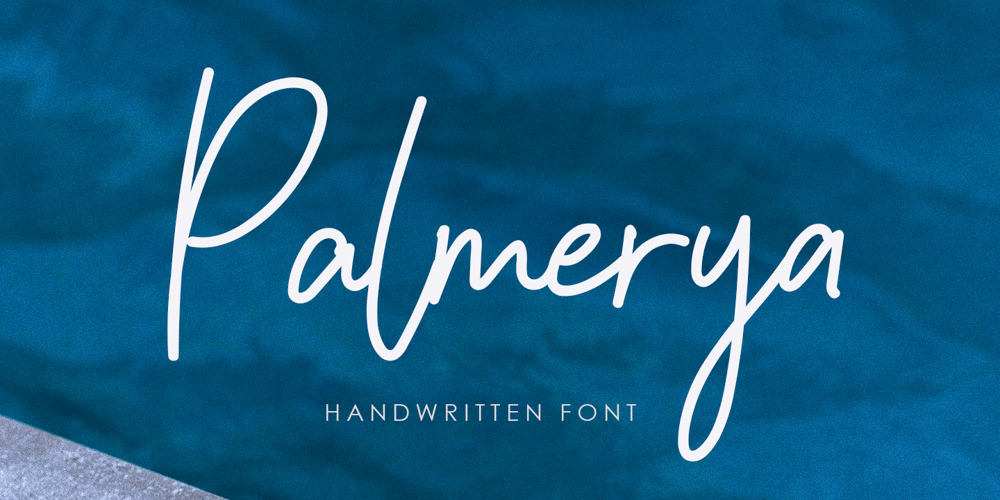
Palmeyra
Palmeyra font
Palmeyra Font Family was designed by Agam Rahmadan and published by Viswell. Palmeyra contains 1 styles and family package options. Palmeyra is a handwritten font with a modern style. This font is suitable for your design projects, brandng, crafting, logos, weddings, and many more.Palmeyra Contains : Uppercase & Lowercase Alternate Numeral & Punctuation Multilingual Ligatures